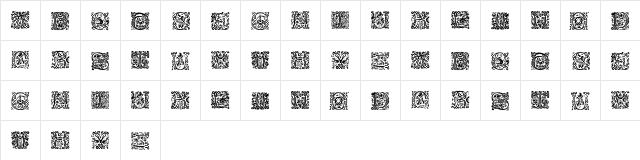
MasselleAM Regular
Design Context for MasselleAM Typeface
MasselleAM is a composed and adaptable typeface that performs quietly and consistently across a wide range of design contexts.